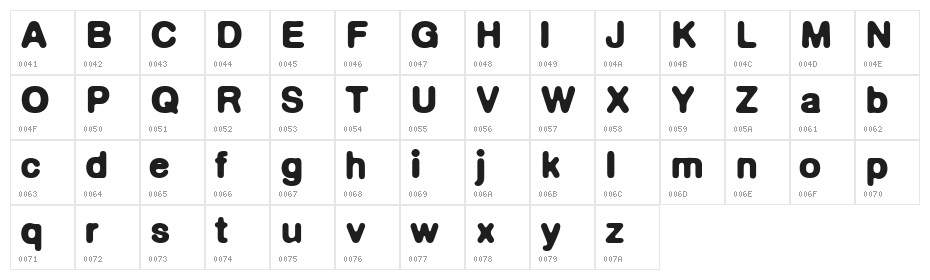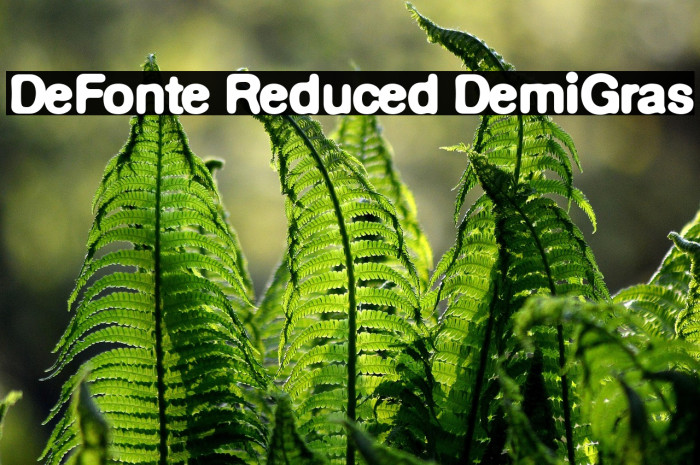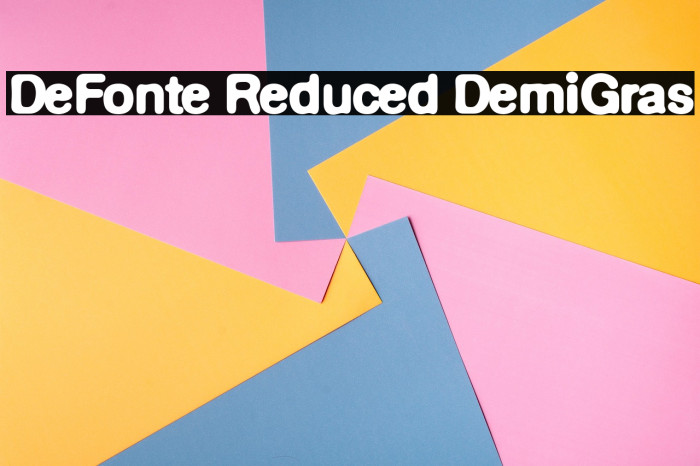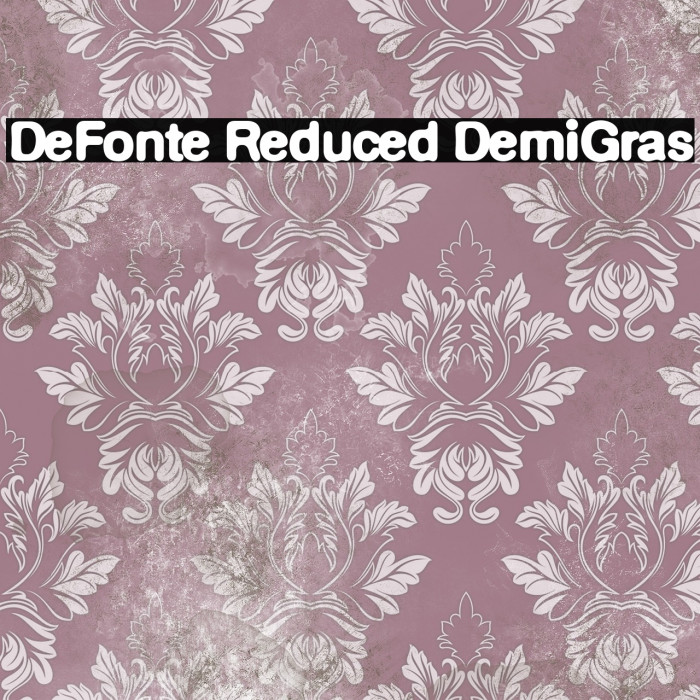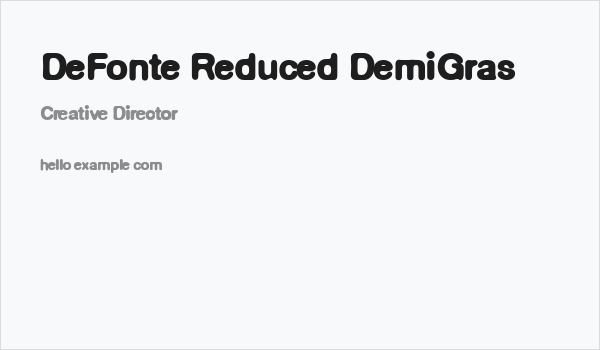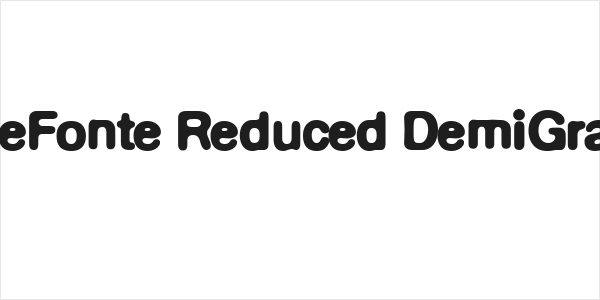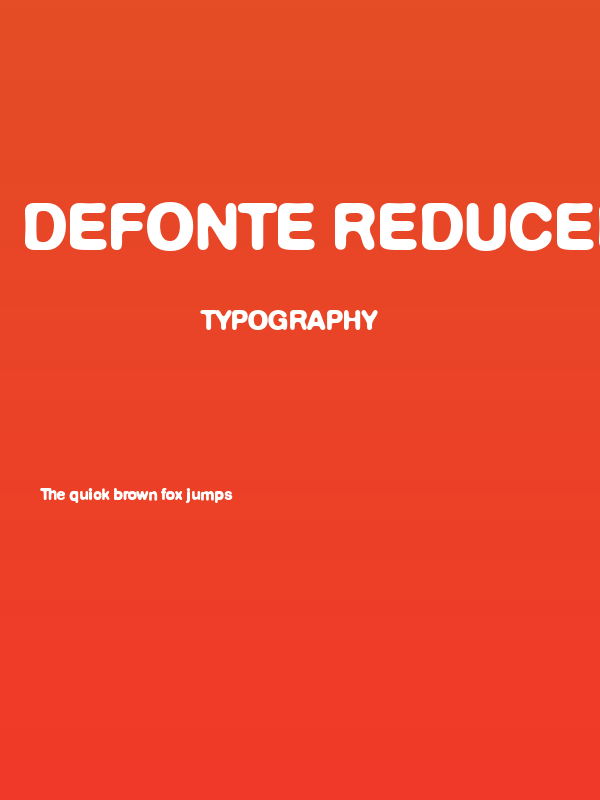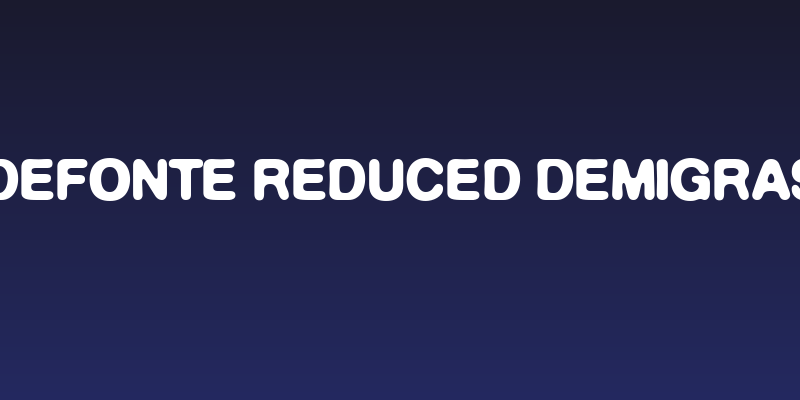
DeFonte Reduced DemiGras Font
DeFonte Reduced DemiGras Description
This font features bold, rounded characters with a playful and friendly appearance. The letters are uniformly thick, giving it a strong presence while maintaining a soft, approachable look. The rounded edges and consistent stroke width contribute to its modern and casual style, making it suitable for a variety of applications. The font's design is clean and easy to read, with a slight emphasis on the vertical strokes, adding to its unique character. It is versatile enough to be used in both digital and print media, providing a contemporary feel to any project.
Use CaseHeadlines, Logos, Branding
Proposed ProjectsIdeal for branding, children's books, playful advertisements, and digital media.